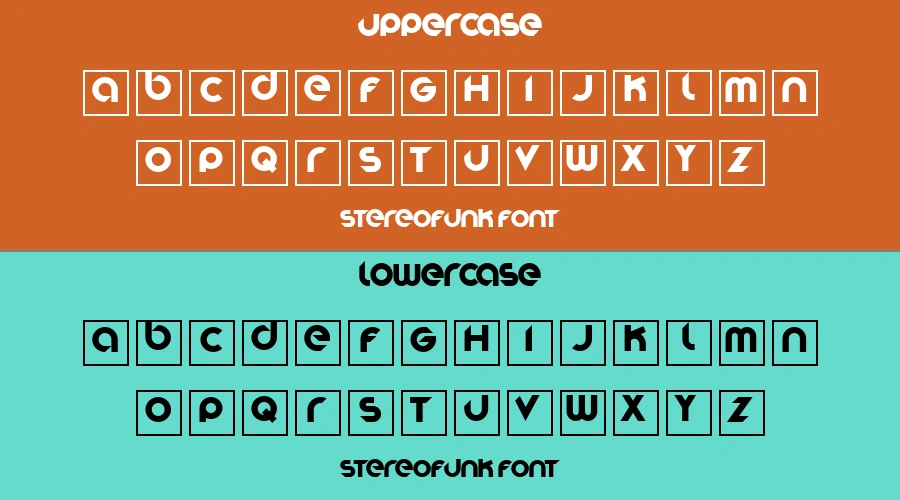
About Stereofunk Font
Designed with precision, Stereofunk Font merges harmonic curves with sophistication in every character. This versatility makes it particularly effective for corporate reports, where originality and sophistication directly impact communication quality. Each letterform demonstrates meticulous craftsmanship.
Technical excellence shines through elements like pressure variations and beginning forms, enhancing typographic versatility. In footnotes settings, Stereofunk Font proves its worth through superior detail preservation. The thoughtful execution of bowl shape and contemporary relevance ensures professional results.